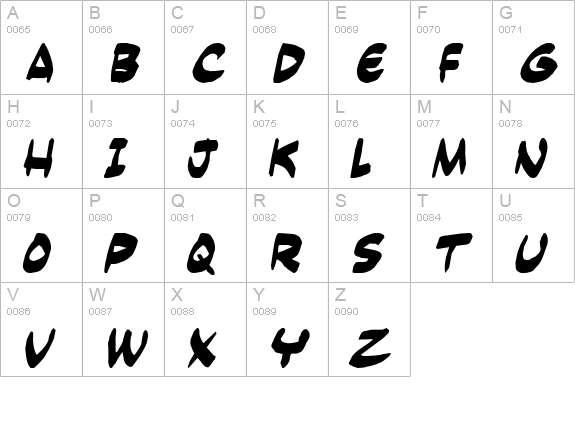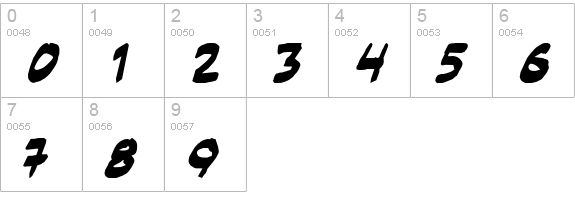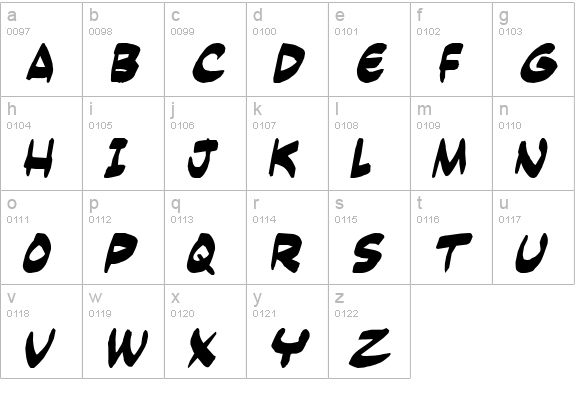
Yesterdays meal Font Details
Introducing the exquisite Yesterdays Meal font, a delectable blend of elegance and charm. With its unique and stylish design, this font is sure to captivate your audience and leave a lasting impression. Perfect for a variety of projects, from branding to invitations, Yesterdays Meal font exudes sophistication and flair. What sets this font apart is its versatility and ability to convey both modernity and timelessness. Its sleek lines and graceful curves make it a standout choice for any design need. Whether you're creating a logo, website, or social media post, Yesterdays Meal font will elevate your work to new heights. And the best part? Yesterdays Meal font is available for free download at FontsMarket.com. So why wait? Add this exquisite font to your collection today and watch your designs come to life with style and sophistication.